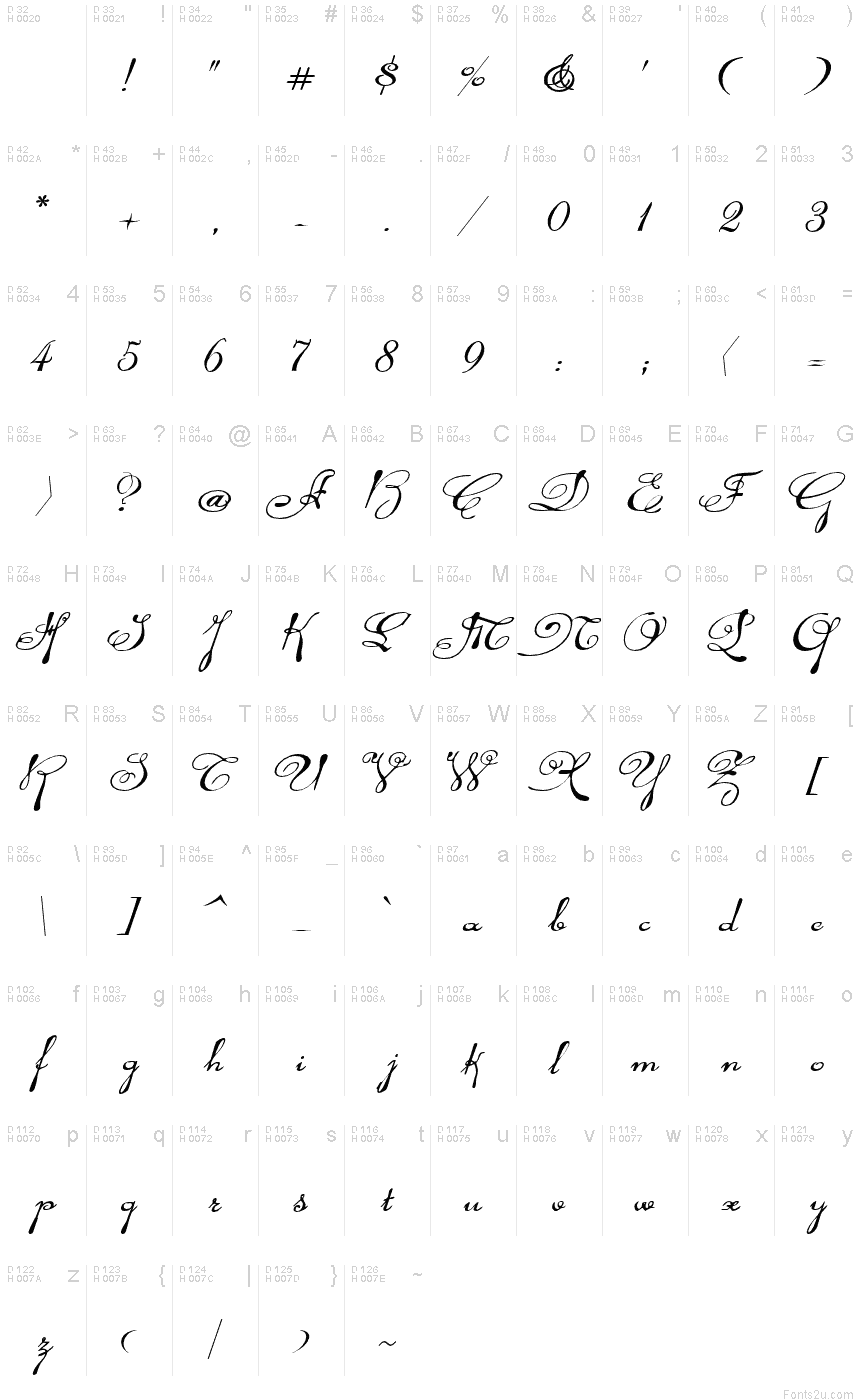
Rhalina Expanded Italic by Daniel Zadorozny of Iconian Fonts is a free calligraphic script with unusually broad, sweeping letterforms. Strong changes in stroke width, oversized loops, and long curling flourishes give the writing an extravagant theatrical silhouette, with many letters extending far beyond their central shapes.
Wedding stationery is a particularly convincing setting for its formal sweep, and the same ornate treatment also suits fashion branding, perfume packaging, and gala posters. Editorially, it can make a magazine masthead resemble an illustrated ribbon.
Rhalina Expanded Italic